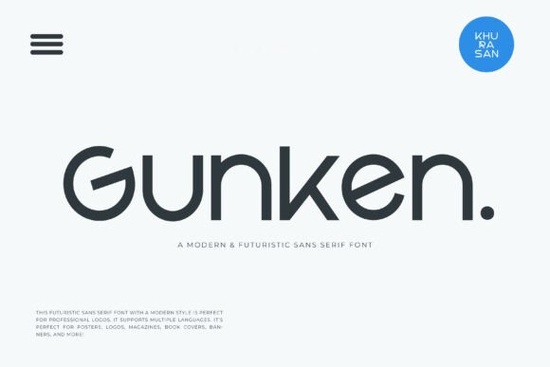
Looking for a clean, modern sans-serif that doesn't feel overdone? Gunken is a smooth, lightweight typeface built for futuristic branding and sleek visual projects. Its minimal letterforms give off a polished, high-end feel without trying too hard which is exactly why so many designers keep reaching for it across different types of work.
What makes Gunken Font different from other sans-serifs?
There are thousands of sans-serif fonts out there, so what sets this one apart? It comes down to the weight and flow of each letter. Gunken has a light, airy execution that still reads clearly at both large and small sizes. The curves are smooth and the spacing feels natural, which means less time tweaking kerning and more time actually designing.
Unlike heavier geometric sans-serifs that can feel stiff, Gunken leans into a softer, more futuristic aesthetic. It works especially well when you want your text to feel modern without being cold or robotic. If you've explored options like a clean and minimal typeface for aesthetic projects, Gunken sits in that same family of versatile, easy-to-pair fonts.
What kind of projects work best with this font?
Gunken is one of those fonts that adapts to almost anything. Here are some of the most common uses:
- Posters and banners the lightweight structure keeps large text from feeling heavy
- Logos and branding kits perfect for startups, tech brands, and lifestyle companies going for a sleek identity
- Magazine layouts and book covers clean enough for editorial use without blending into the background
- Social media graphics readable at small sizes on screens, which matters for Instagram and Pinterest
- Print-on-demand products mugs, tote bags, and apparel designs that need a modern, uncluttered typeface
Small business owners often struggle to find fonts that look professional without hiring a designer. Gunken solves that problem because it's easy to use out of the box. Drop it into a Canva template or Adobe Illustrator, and it looks polished right away.
Can I pair Gunken with other fonts?
Absolutely. One of Gunken's strengths is how well it plays with other typefaces. Because it's so clean and light, it pairs nicely with both serif fonts for contrast and other sans-serifs for a layered look.
For example, you could use Gunken for your headings and pair it with something like this elegant serif option for body copy. That kind of contrast creates visual hierarchy without any extra effort. If you want a bolder companion for display text, this bolder typeface choice adds weight where you need it.
For branding projects that need personality, try combining Gunken with a decorative accent font. A duo-style display font can add character to your headers while Gunken handles the clean, readable sections. And if your project calls for something with a bit of attitude, a playful sans-serif with personality can fill that gap on quotes or taglines.
Does Gunken work well for print-on-demand?
Yes, and this is where it really shines for sellers. Print-on-demand designs need fonts that are:
- Readable at multiple sizes from small mug text to large poster prints
- Not overly trendy so your designs don't look dated in six months
- Clean enough to scale no tiny details that get lost on fabric or low-res prints
Gunken checks all three boxes. Its simple letterforms reproduce well on textiles, paper, and screens. Whether you're designing for Redbubble, Merch by Amazon, or Etsy, having a reliable sans-serif like this in your toolkit saves you from font-hunting every time you start a new listing.
Who should use Gunken Font?
This font is a solid pick for anyone who values clean, modern typography without the complexity. Specifically:
- Graphic designers working on branding, packaging, or editorial layouts
- Crafters and hobbyists making invitations, cards, or wall art
- POD sellers who need versatile fonts for product mockups and designs
- Small business owners creating their own marketing materials
- Content creators designing thumbnails, banners, or social posts